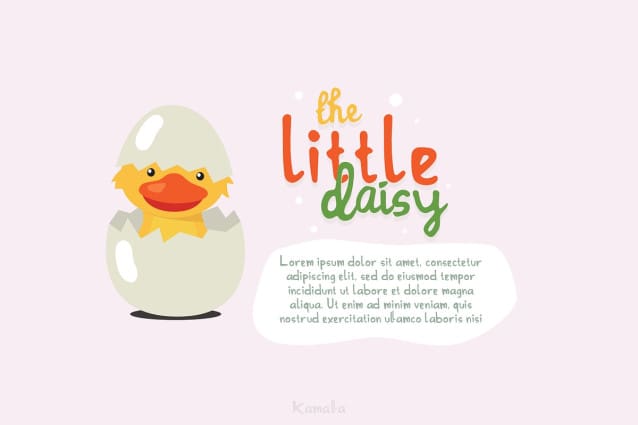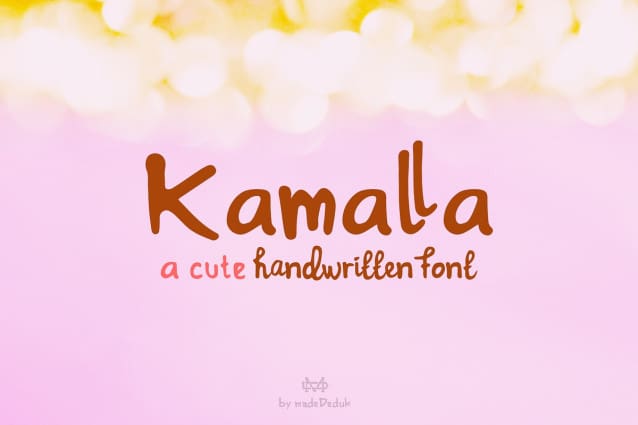
Kamalla Cute Font
Kamalla Cute Font is a cute font with a matching script and regular will be perfect for book, title branding, product packaging, invitation, quotes, t-shirt, label, poster, logo etc.